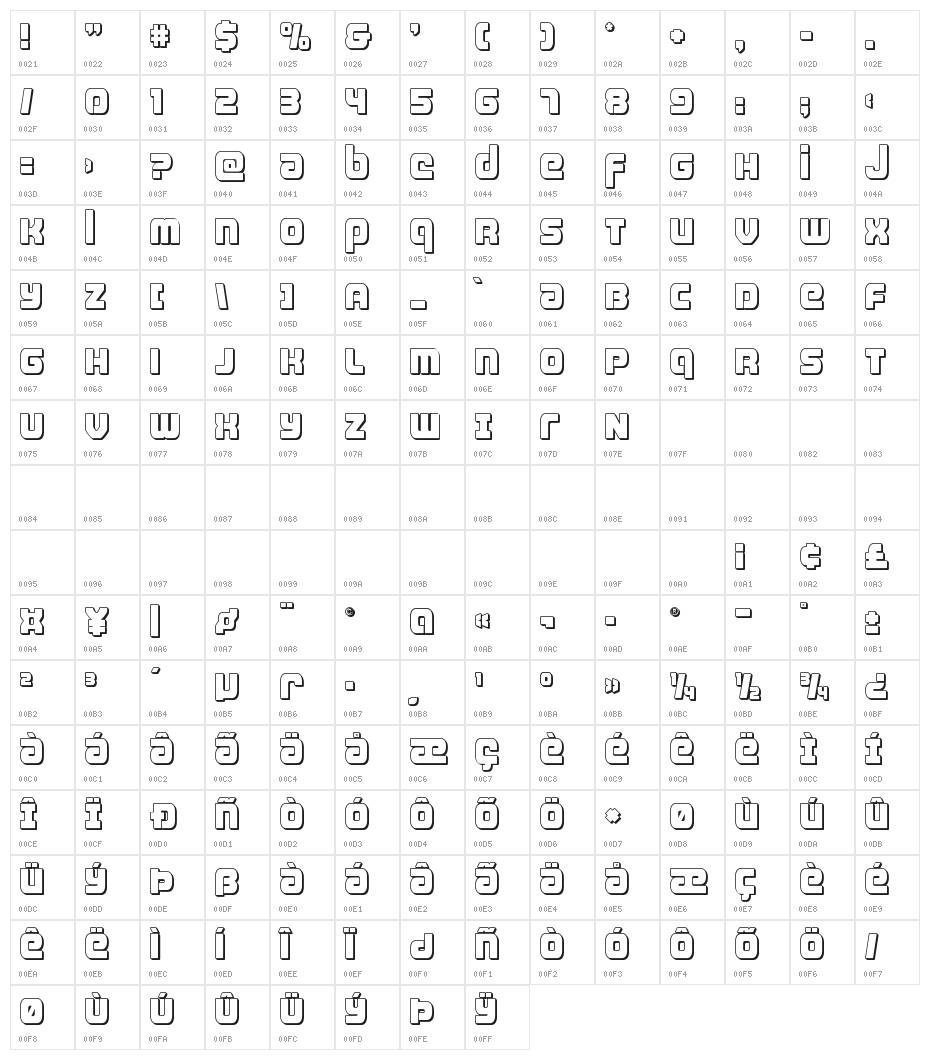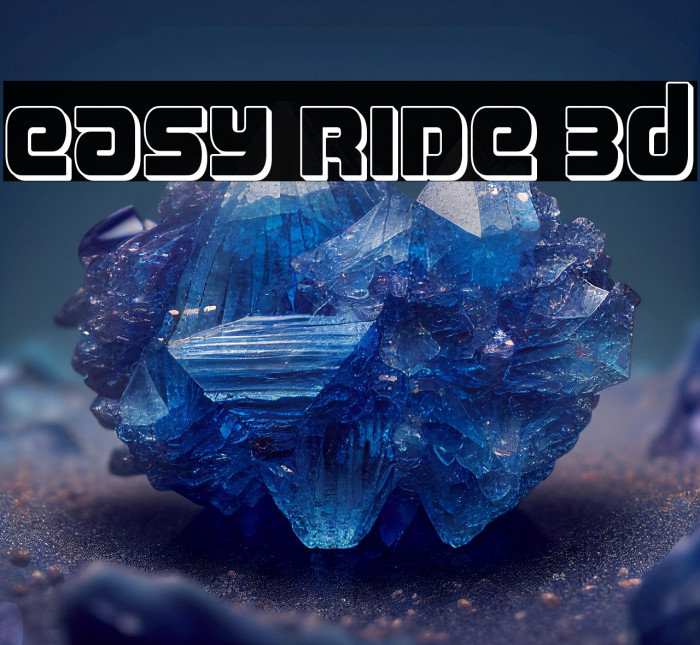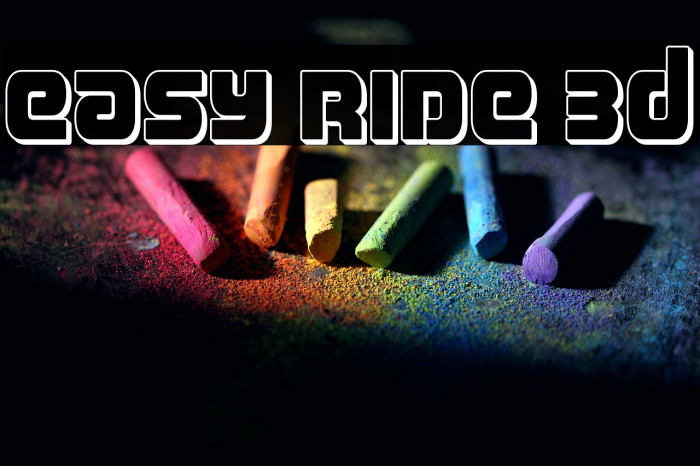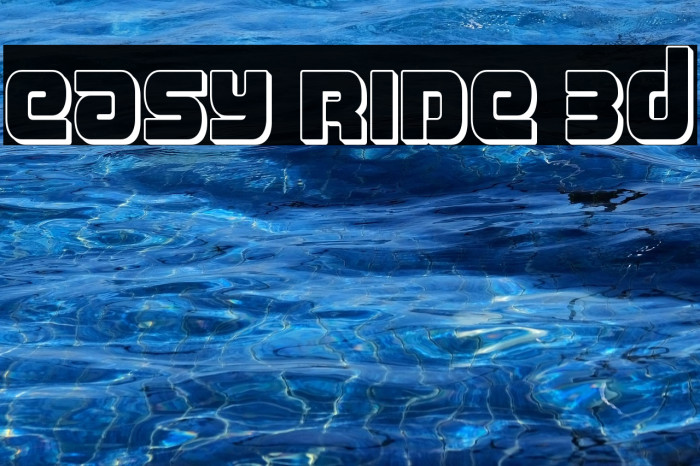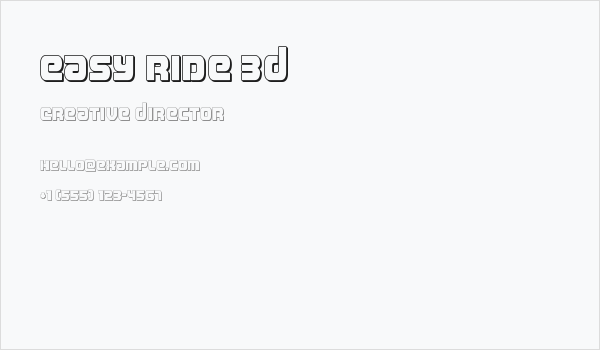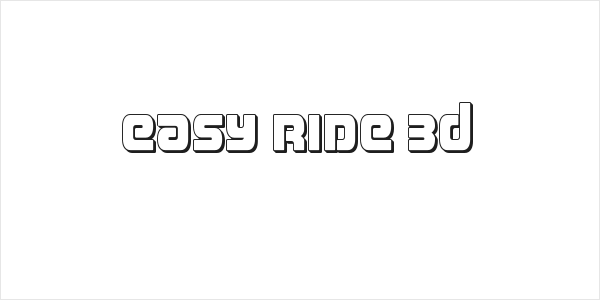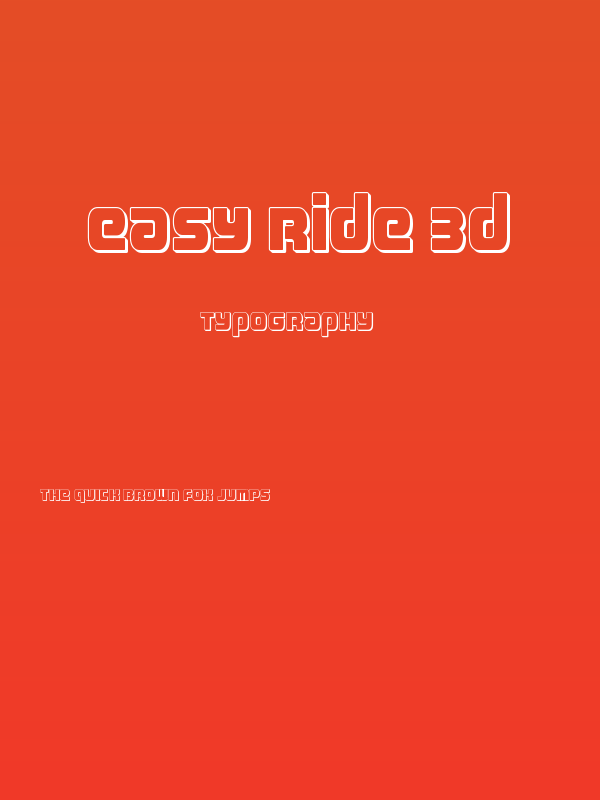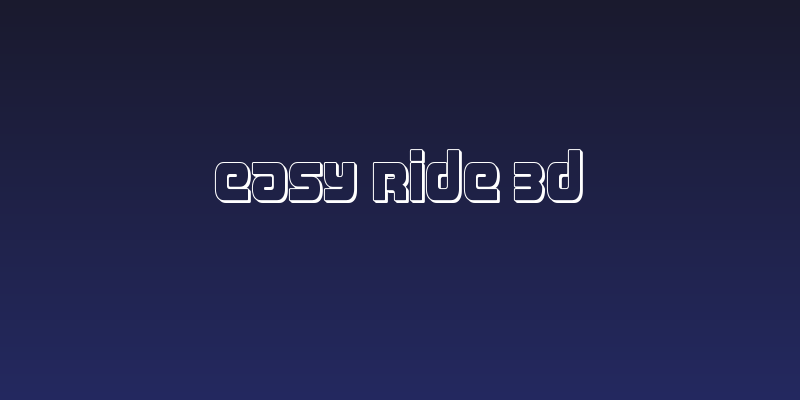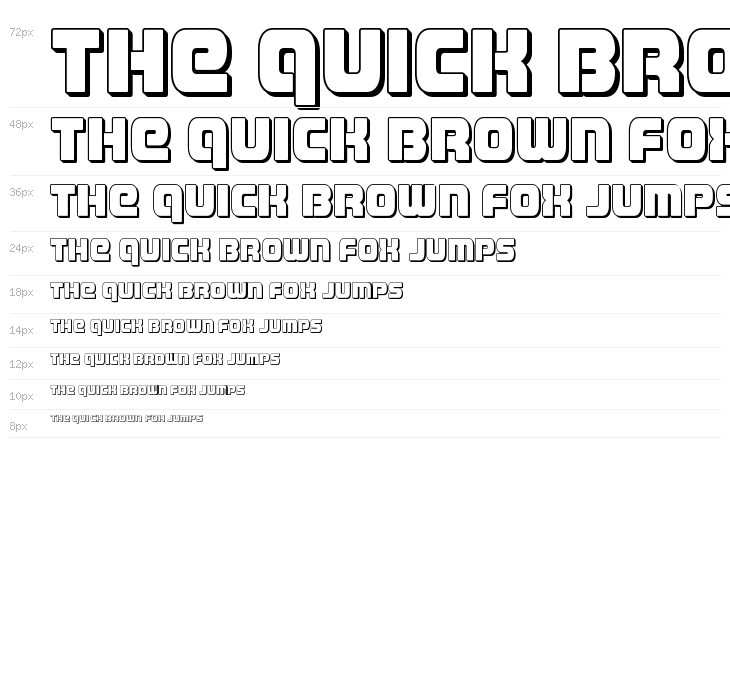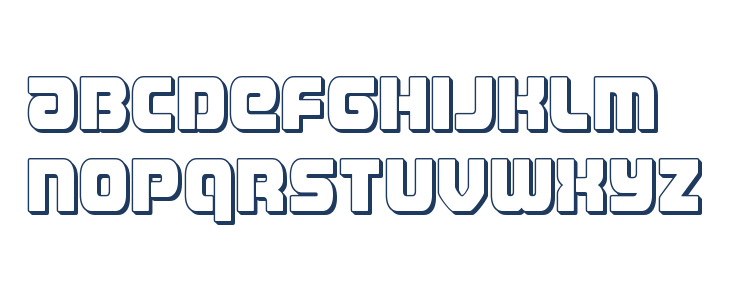
Easy Ride 3D Font
Easy Ride 3D Description
This font features a bold, three-dimensional outline style that gives each character a distinct, futuristic appearance. The letters are uniformly thick, with rounded edges and a consistent stroke width that enhances readability while maintaining a playful and modern aesthetic. The uppercase and lowercase letters share a similar structure, creating a cohesive look across different text cases. The numerals and special characters are designed to match the overall style, ensuring visual harmony. This font's unique design makes it suitable for eye-catching displays and creative projects.
| Proposed Projects | Ideal for posters, video game graphics, branding, and any project requiring a modern, standout font. |